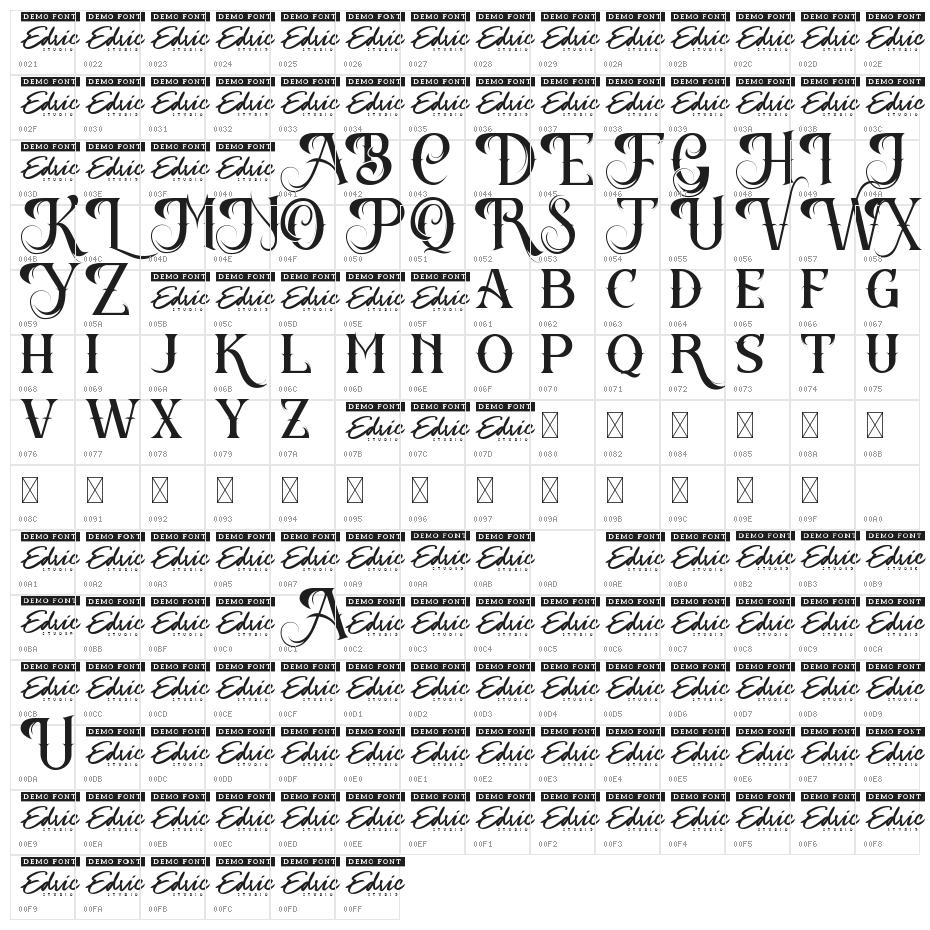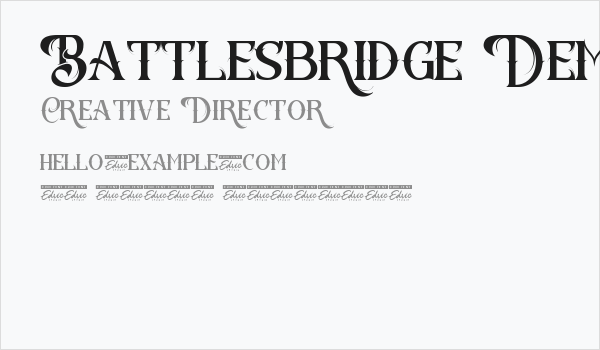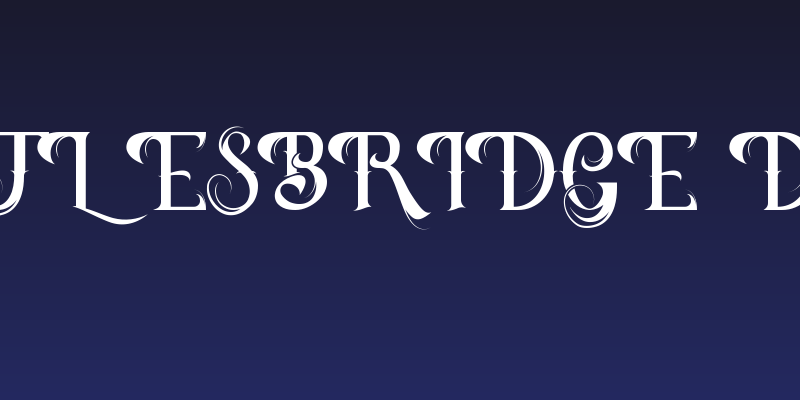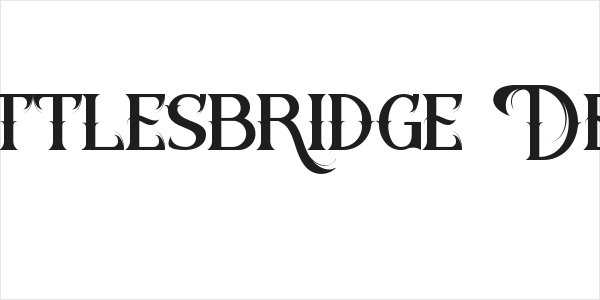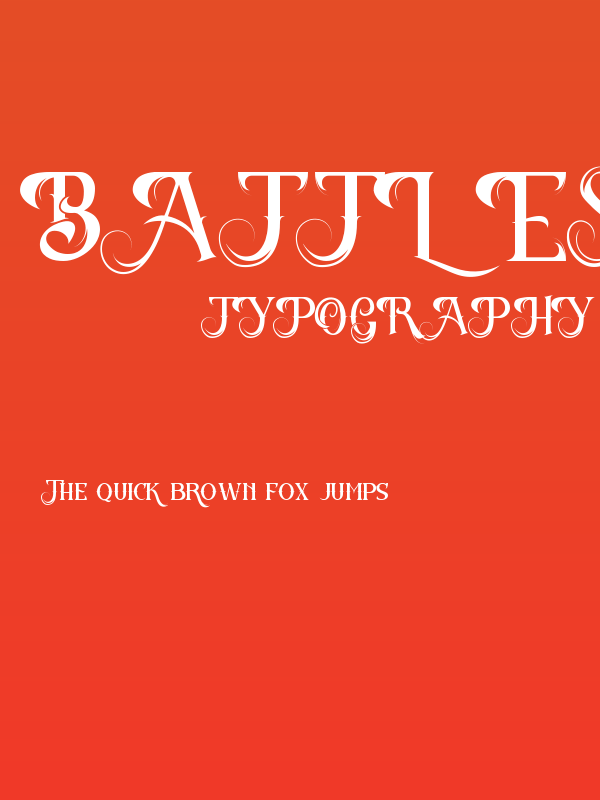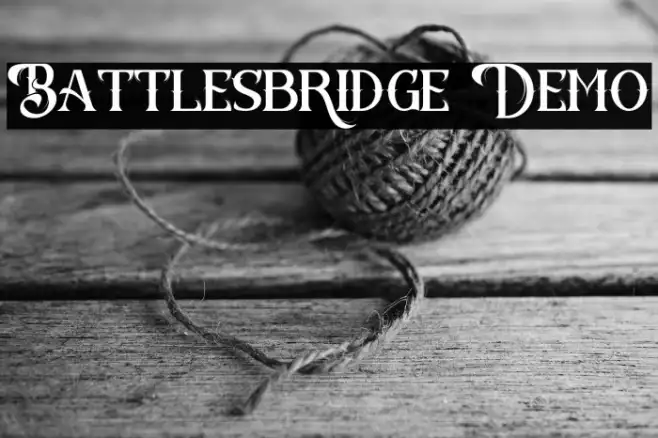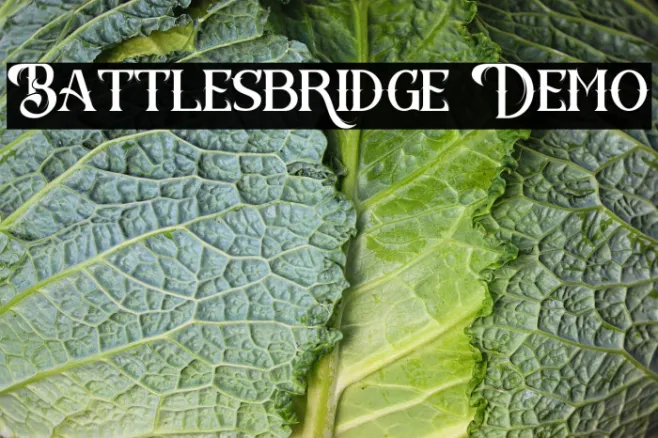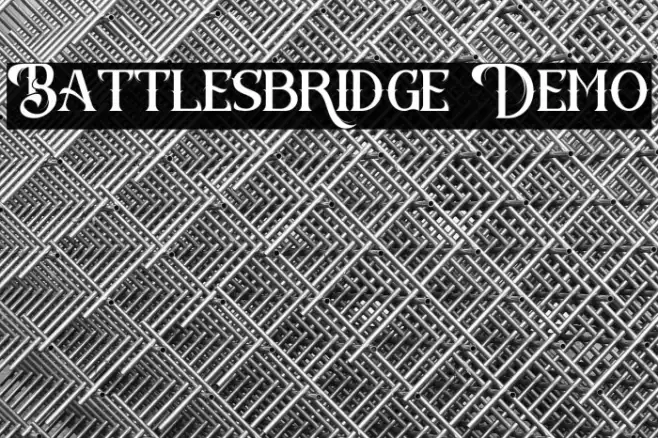
Battlesbridge Demo Font
Battlesbridge Demo Description
This font features a highly decorative and ornate style, characterized by elaborate swirls and flourishes extending from the main strokes of the letters. The uppercase letters are particularly intricate, with each character showcasing unique embellishments that give it a regal and sophisticated appearance. The overall design is bold and striking, making it ideal for creating a dramatic impact. The lowercase letters maintain a more subdued elegance, complementing the uppercase with a consistent style. This font is perfect for projects that require a touch of luxury and grandeur, such as invitations, branding, or high-end product packaging.
| Proposed Projects | Ideal for luxury branding, wedding invitations, and high-end product packaging. |